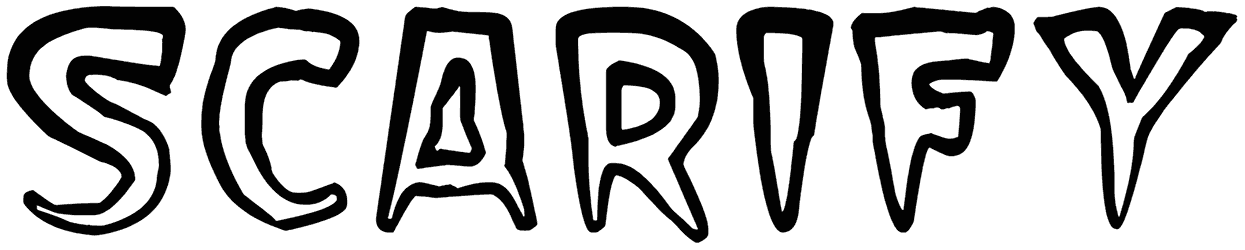
Scarify Font
There are not a lot of categories that you can mix up to create an incredibly scary and creepy effect. Scarify is a combination of both ghost fonts and outline fonts and uses of large amount of talent to develop such a display.